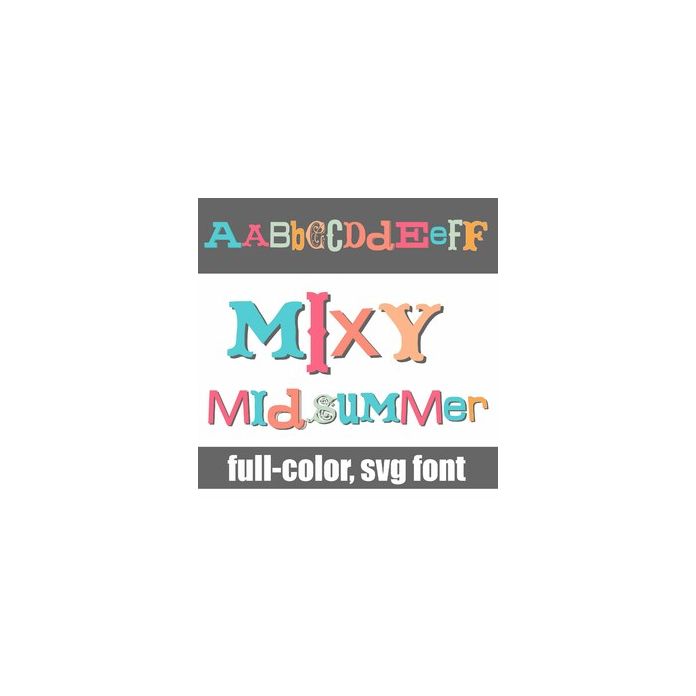
This full-color font features a mix of fonts in a fun summer color palette. There is a an alt version w/ secondary colors available through your system's or Silhouette's glyph map.